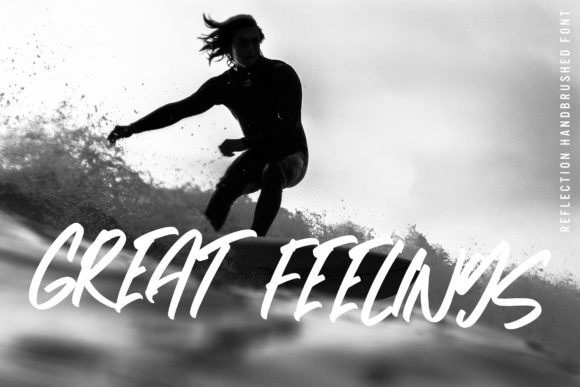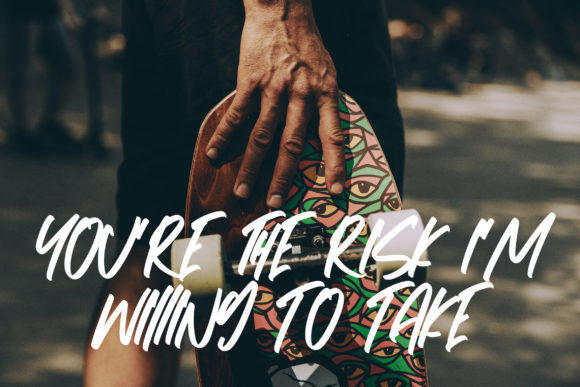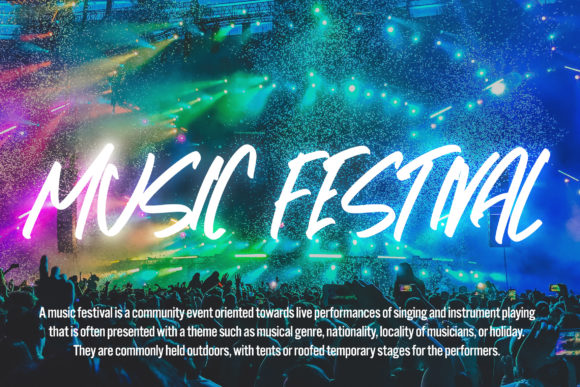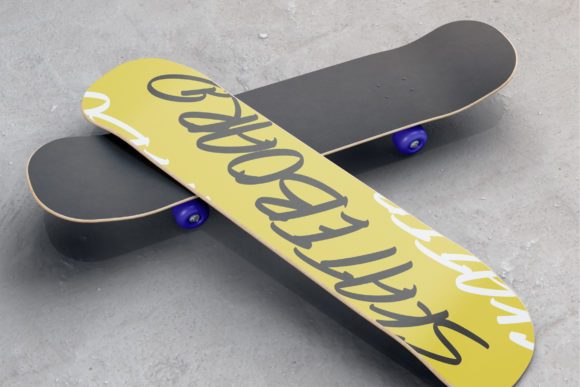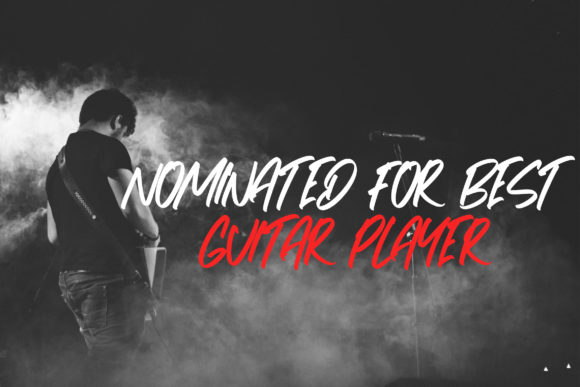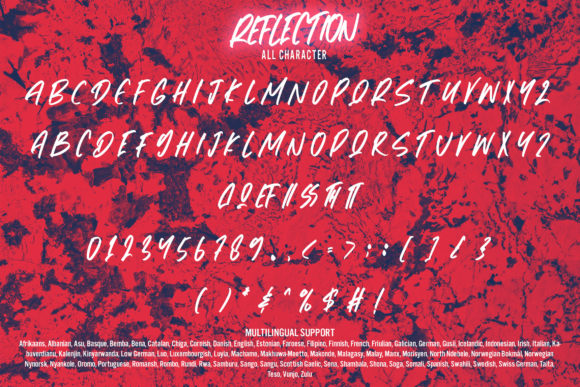
Introduction to Reflection Font
Have you ever stared at a blank page, searching for that one element to elevate your design from good to great? That’s exactly where the Reflection Font comes in – a game-changing addition to your design arsenal. With its bouncy and quirky personality, this display font is sure to add a fresh and contemporary touch to your creative projects.
As designers, we’re always on the lookout for high-quality design resources that can help us stand out in a crowded market. The Reflection Font is a valuable addition to any designer’s toolkit, offering a unique and eye-catching way to express our creativity. And the best part? It’s available for free download, making it an accessible design resource for designers of all levels.
Key Features of Reflection Font
- High-quality design with a unique, creative style perfect for various projects
- Supports a wide range of languages, making it suitable for global design projects
- Unique, reflective design elements that add a creative touch to any design or project
Honest Review: Reflection Font
As a designer, I’m always on the lookout for high-quality design resources to elevate my creative projects. Recently, I stumbled upon the Reflection Font, which I’d like to share my thoughts on.
What works well for me is the font’s versatility. It’s available for free download, making it an excellent addition to my design arsenal. The transparent background allows for seamless integration with various design elements, adding a touch of sophistication to my projects.
- ✨ Clean and modern aesthetic
- ✨ Highly customizable with various font styles
- ✨ Suitable for a wide range of creative projects, from branding to digital art
However, I do have some reservations about the font’s limitations. ⚠️ The font’s readability can be affected by the size and spacing, which may require some fine-tuning to achieve optimal results.
Overall, I’m impressed with the Reflection Font’s potential to elevate my designs. While it may require some adjustments to get the most out of it, I believe it’s a valuable addition to any designer’s toolkit.
Reflection Font
Tips for Getting the Most Out of the Reflection Font
For a high-quality design, use the Reflection Font with a transparent background to create a sense of depth and dimension. You can also experiment with different font sizes and colors to create a unique and creative look. Additionally, consider using the font in combination with other design elements, such as images and graphics, to add visual interest to your project.
The Reflection Font is ideal for use in creative projects, such as brochures, flyers, and posters. It can also be used in web design, social media graphics, and other digital applications where a unique and eye-catching font is needed. With its high-quality design and transparent background, the Reflection Font is a valuable design resource that can help you take your project to the next level.